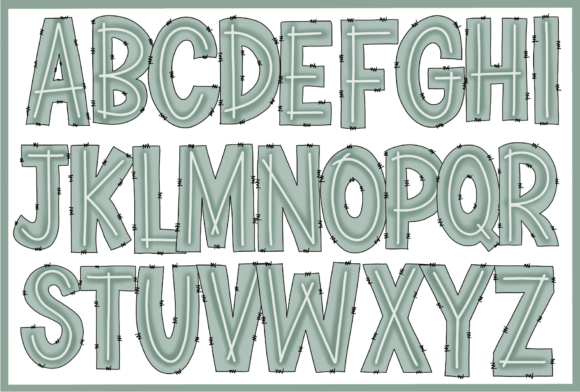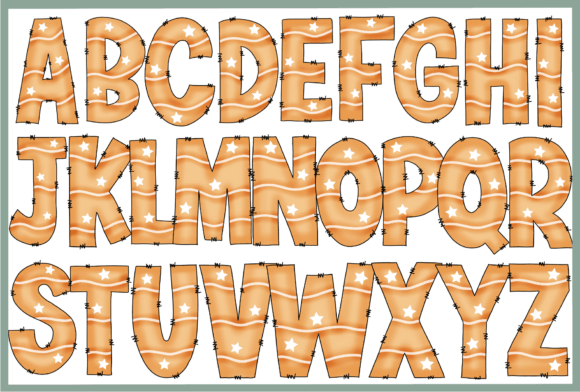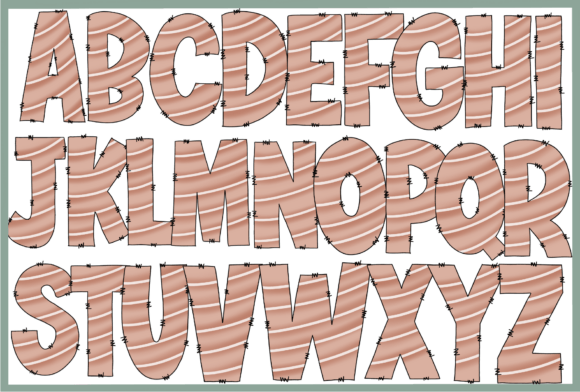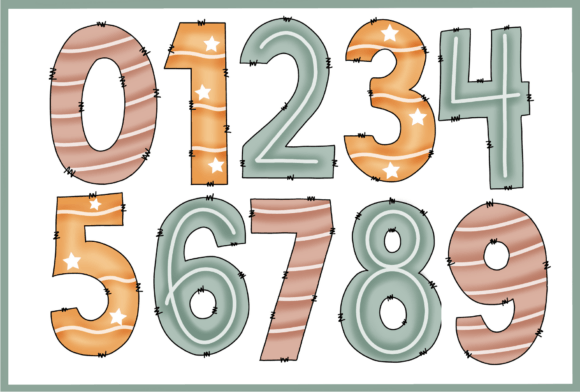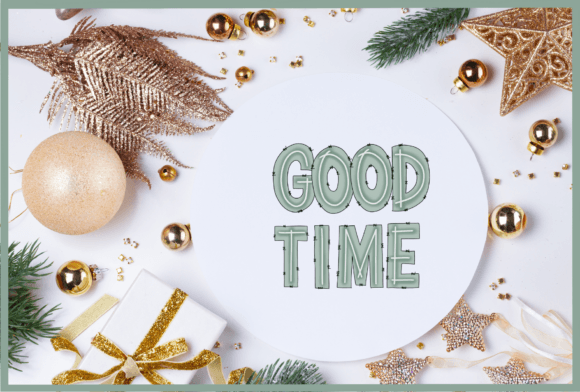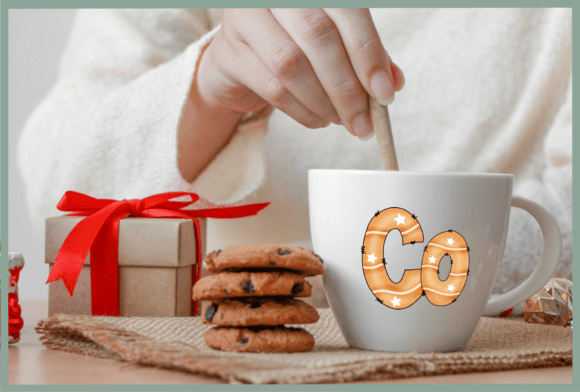
Introduction to Holly Cute Font
HOLLY CUTE is a decorative font designed with fun letters that feature Christmas patterns.
Each letter is decorated with festive elements and ornaments, making it perfect for holiday cards, invitations, and cheerful designs .
Key Features of Holly Cute Font